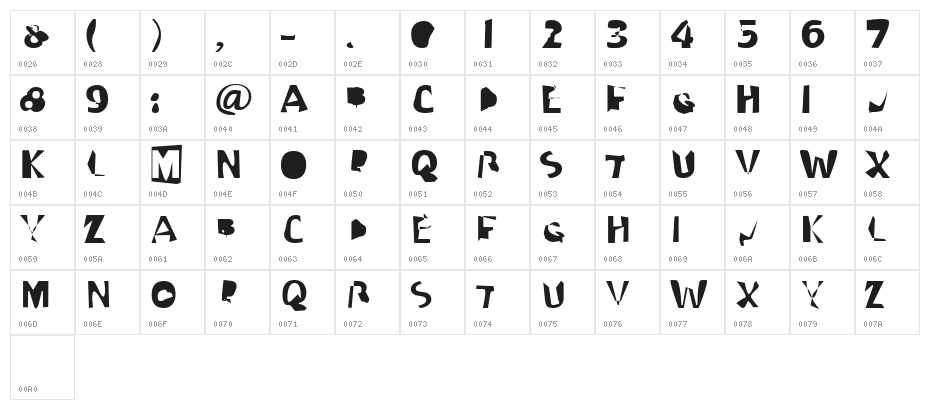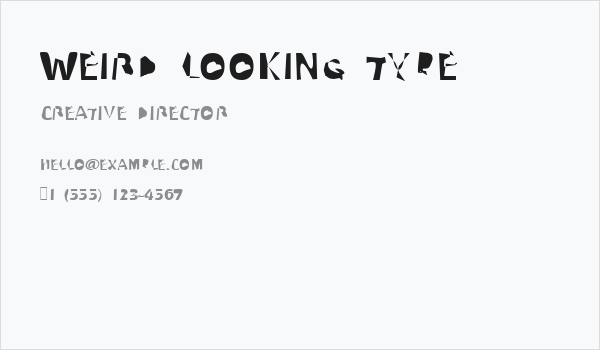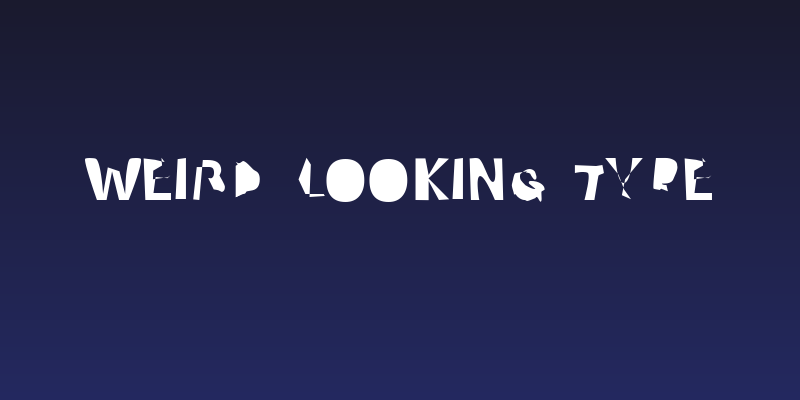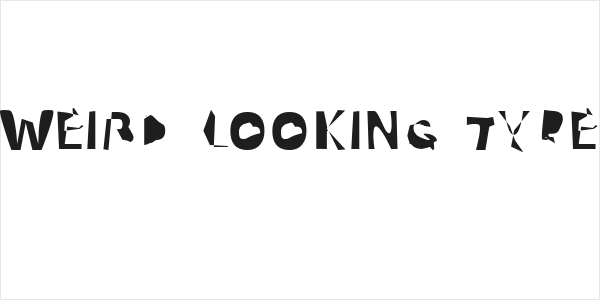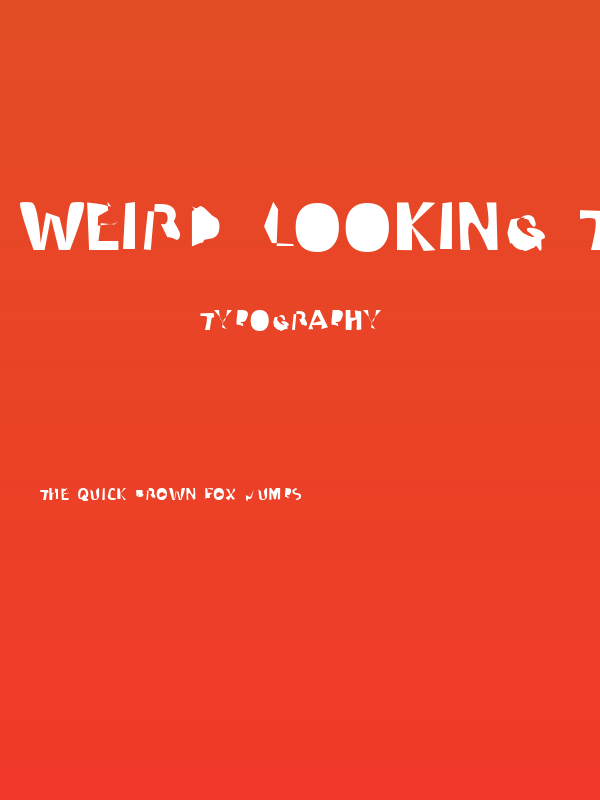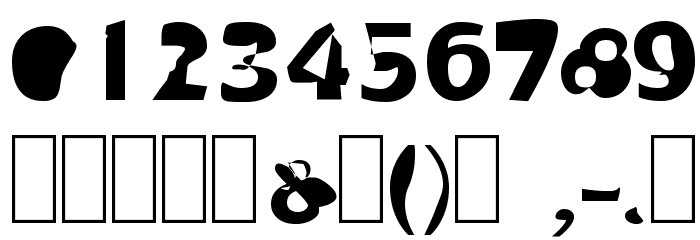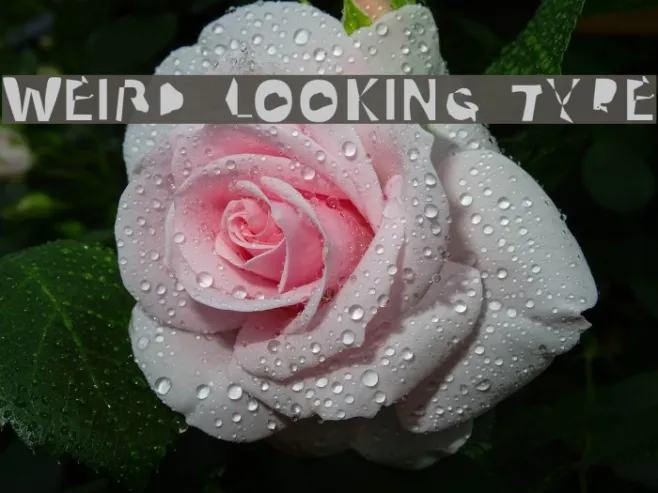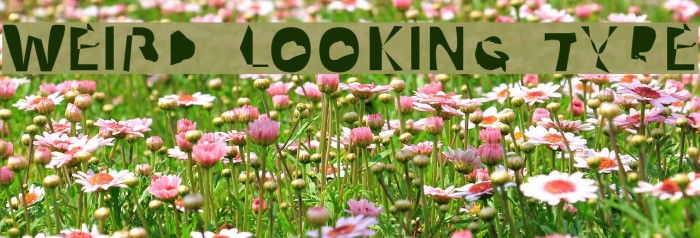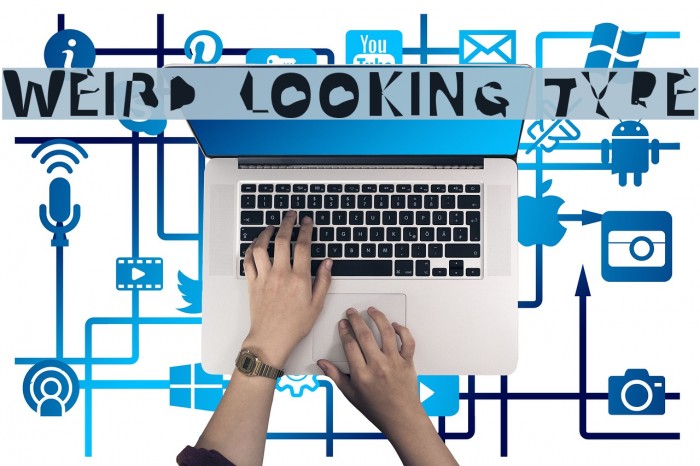
Weird Looking Type Font
Weird Looking Type Description
This font features a highly abstract and fragmented design, with each character appearing as if it has been shattered or cut into pieces. The letters and numbers are bold and have a strong visual impact, making them suitable for attention-grabbing headlines or artistic projects. The irregular shapes and sharp angles give the font a dynamic and edgy feel, while the overall style remains consistent across both uppercase and lowercase letters. The special characters maintain the same fragmented aesthetic, adding to the font's unique and unconventional appearance.
| Overall Style | Modern, Abstract |
| Use Case | Headlines, Logos, Artistic Projects |
| Proposed Projects | Ideal for artistic posters, album covers, edgy branding, and experimental design projects. |